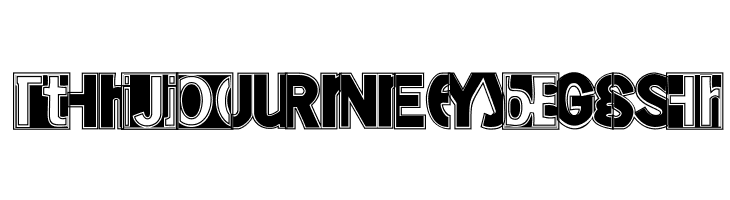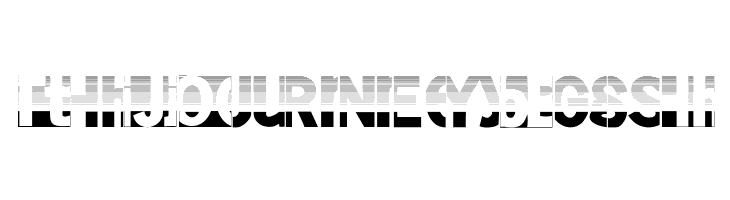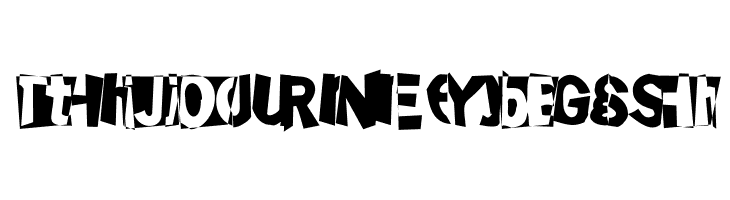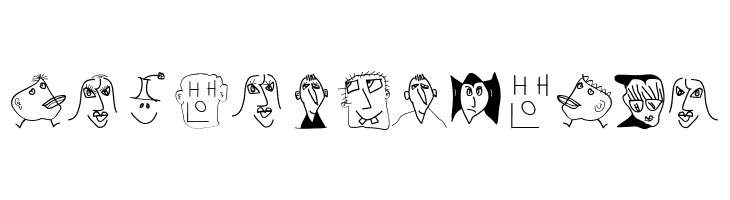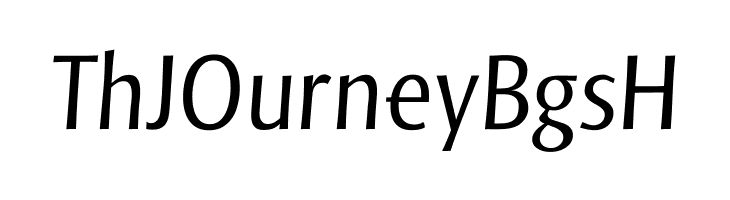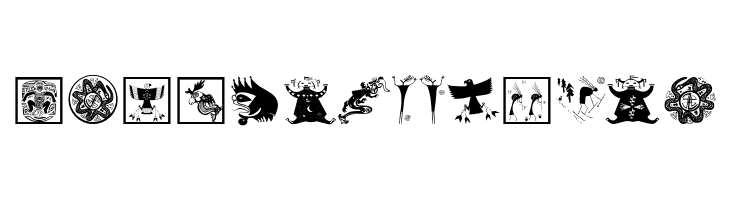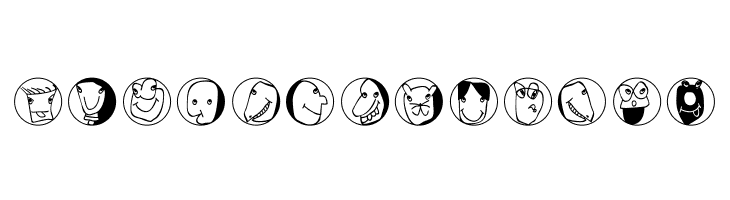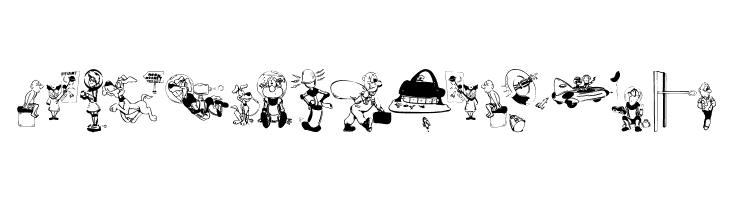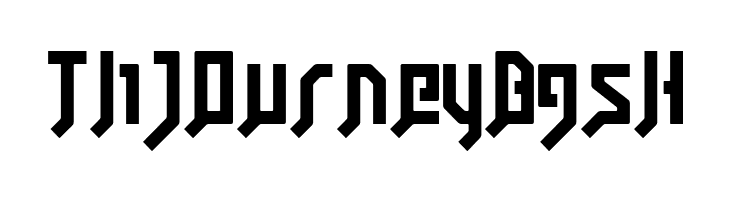
• FriendlyFireDust
A bold, modern font with a stencil-like, futuristic design.
• FriendlyFireMagic
A bold, decorative font with a playful, three-dimensional style.
• FriendlyFirePower
A bold, dynamic font with a graffiti-inspired, energetic style.
• FromageCondOblique
A modern, oblique font with a sleek, condensed style and medium contrast.
• FromKarlasIdeas
A whimsical, decorative font featuring abstract, cartoon-like faces and figures.
• FromOldArtists
Decorative pictogram font inspired by ancient or tribal art.
• FromTheMoon
Cartoonish, illustrated font with space and character themes.
• Frontal
Cartoonish, hand-drawn font with expressive faces as characters.
• Frontal-Buttons
Cartoonish, hand-drawn faces as characters in circular frames.
• FSB08KlangNormalAl
A bold, geometric font with angular edges and a futuristic style.